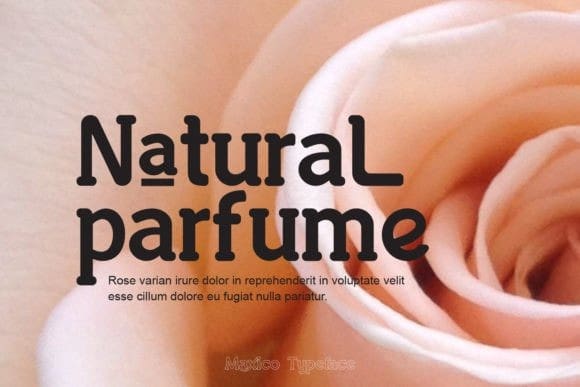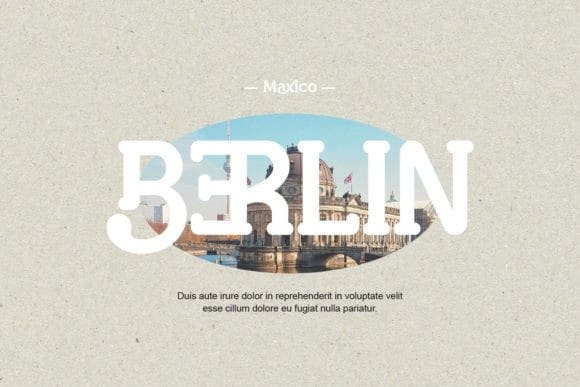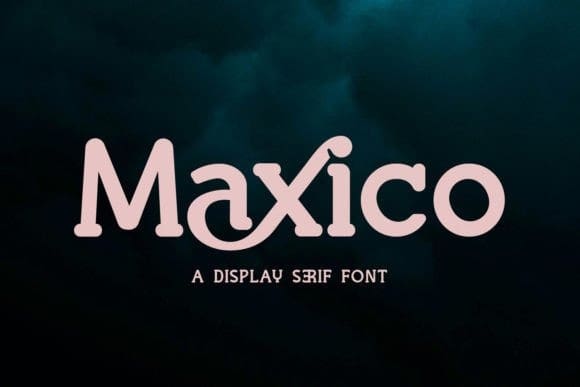
Maxico Font
Maxico Font is a font with a display serif font type. This font was created with an elegant, luxurious and classy impression in mind. It can be used for logos, advertisements, magazines, covers, banners, clothing and others.